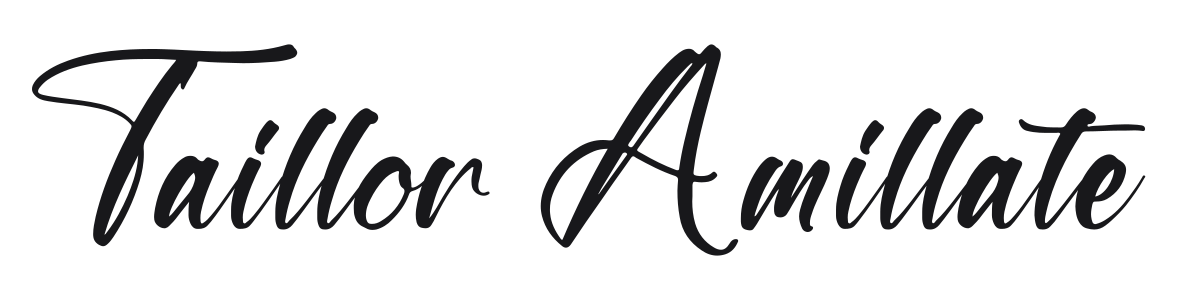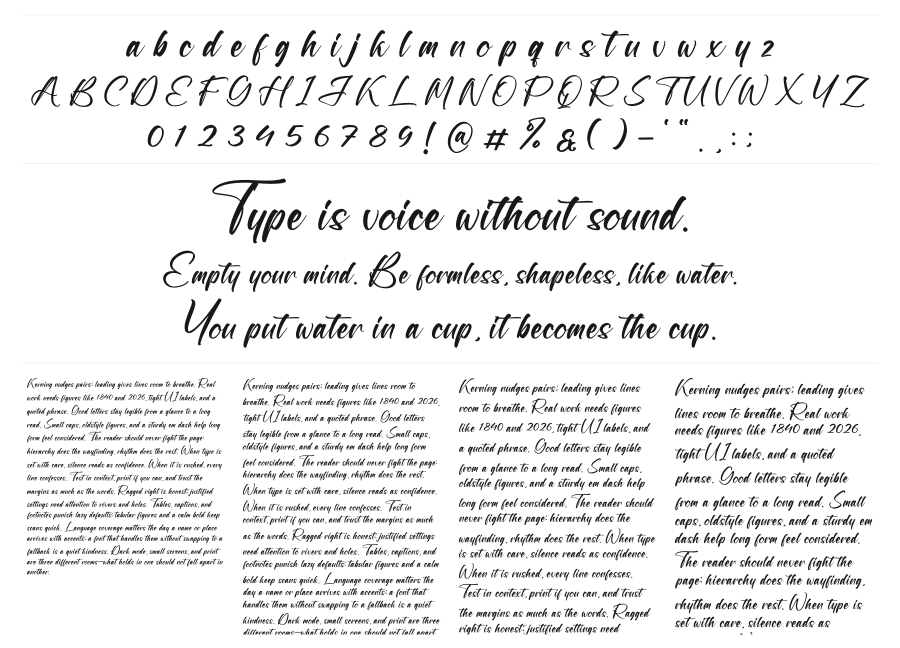
Taillor Amillate
Taillor Amillate is a bold brush script with sweeping strokes and high contrast between thick and thin. It carries the loose energy of hand-lettering while maintaining enough consistency for legible headlines and logos. The dynamic slant and flourished connections make it a natural choice for wedding stationery, branding, and lifestyle packaging.